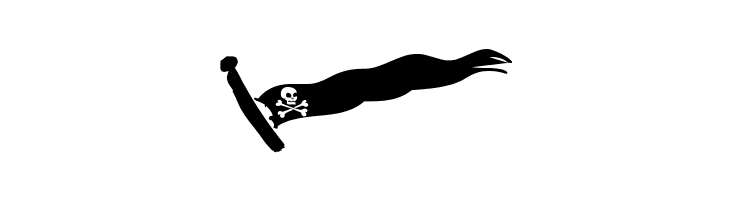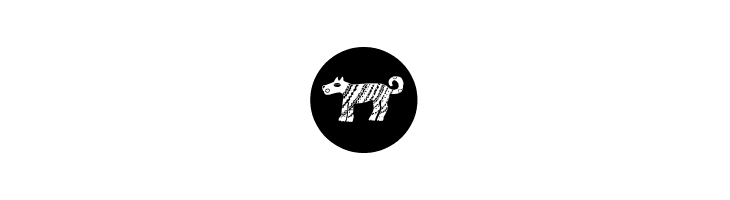
Cartoon-style pictorial font depicting secret agent and surveillance themes.
A bold icon set featuring various pictograms and symbols.
A playful, cartoon-style icon set with medical themes.
A symbolic icon set depicting various religious motifs.
Eclectic pictogram and dingbat collection with playful, bold illustrations.
A display font made of diverse flag icons and symbols.
Decorative symbol font featuring African archetypal imagery.
Abstract symbol font with organic and geometric shapes in square icons.
Ornate cherub and religious-themed dingbat illustrations.